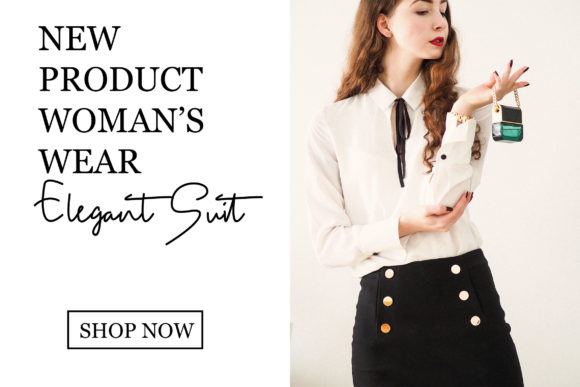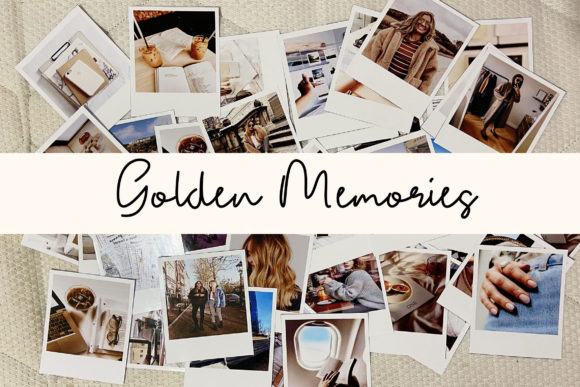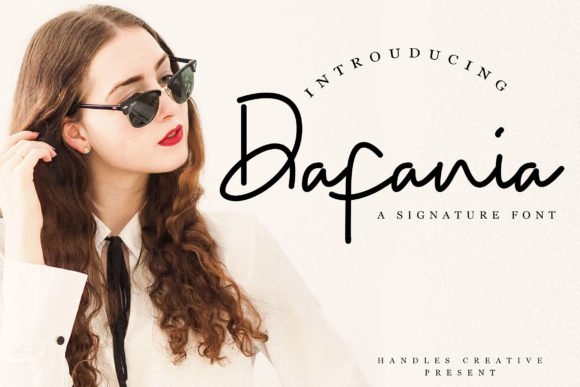
Introduction to Dafania Font
Dafania is a modern and elegant handwritten font.
Use it to make your ideas even more realistic and create spectacular designs .
Why Choose Dafania Font?
Dafania Font offers exceptional quality and versatility, making it a valuable addition to your design toolkit. Whether you’re creating for personal projects or commercial use, Dafania Font delivers professional results.